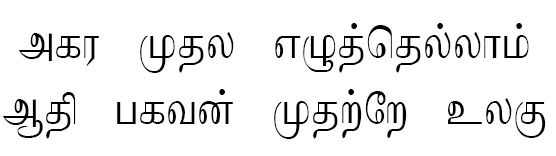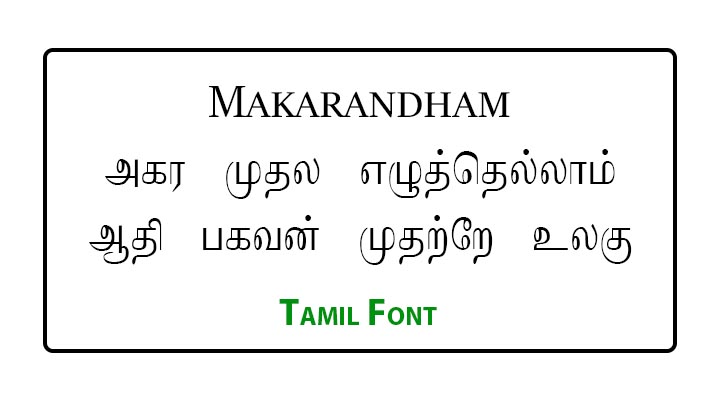
Makarandham Tamil Font Free Download. Makarandham is one of the Tamil Regular Font. Specially used in publications. Here you can download Font and Keyboard Layout for Free. This font is widely used by Tamil Nadu and Sri Lankan Tamil Peoples. The following font was design and generated by by Fontograpgher 3.5.
Makarandham Font
Makarandham Tamil Font Preview